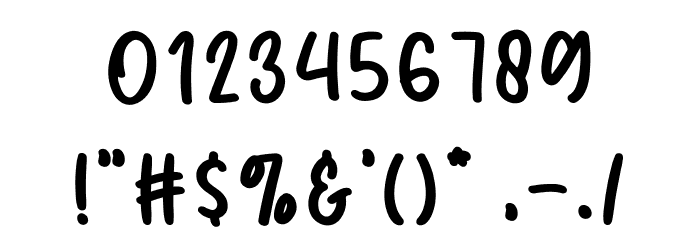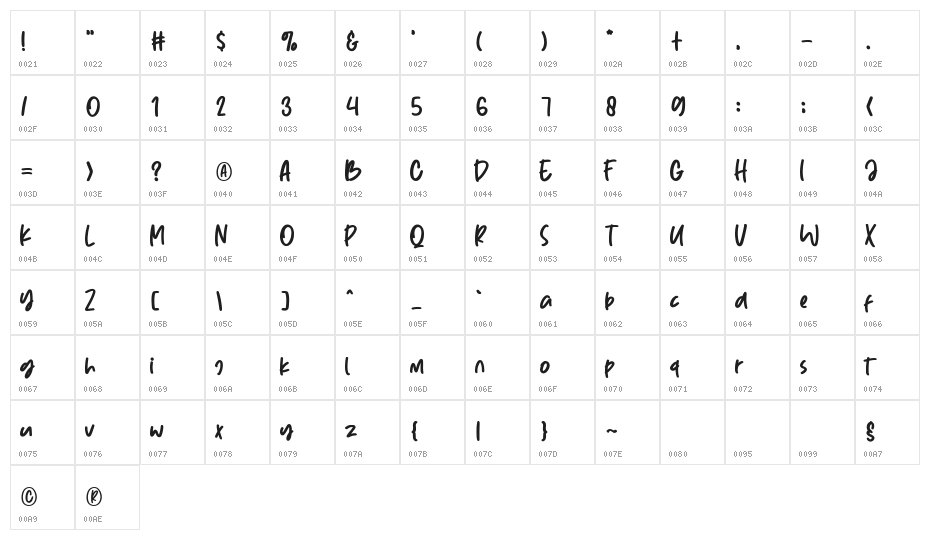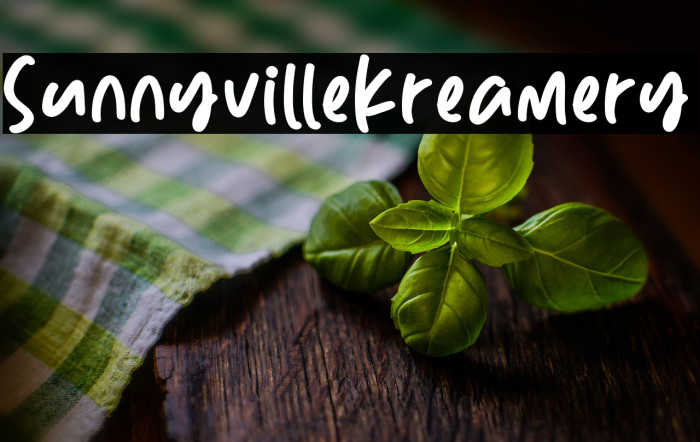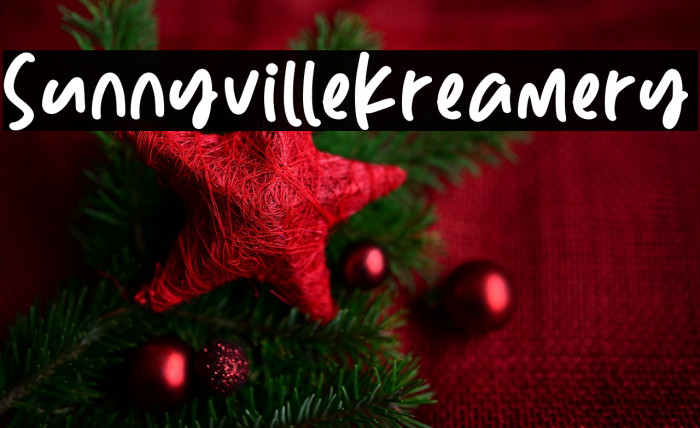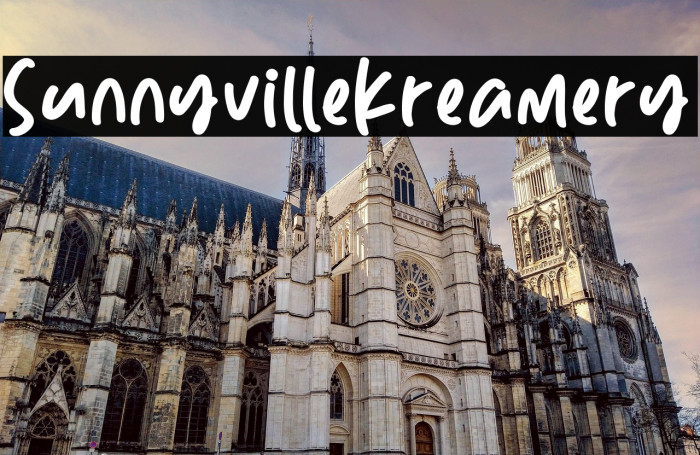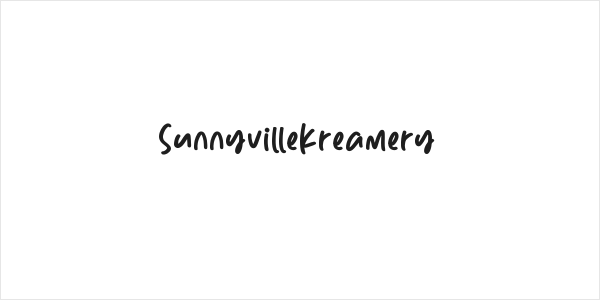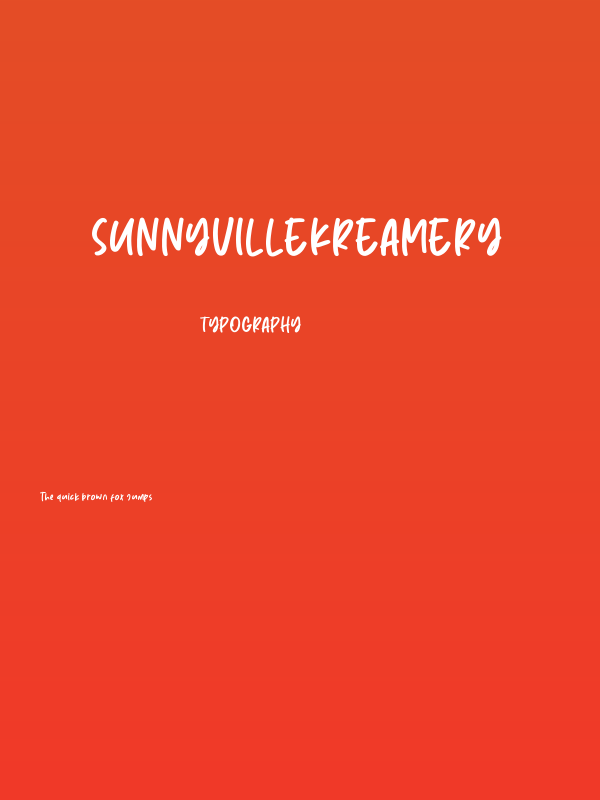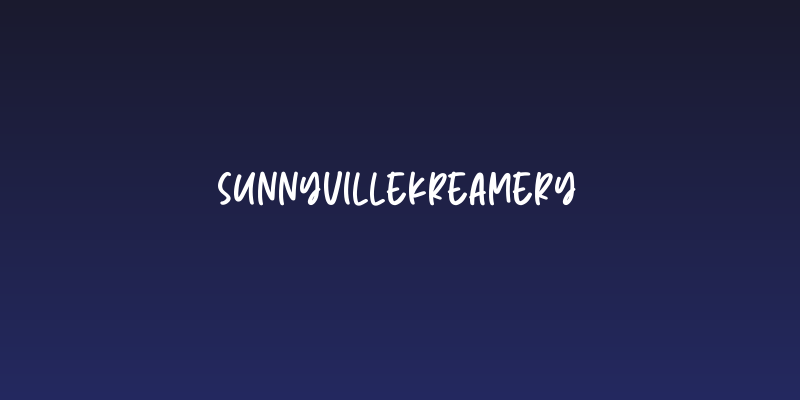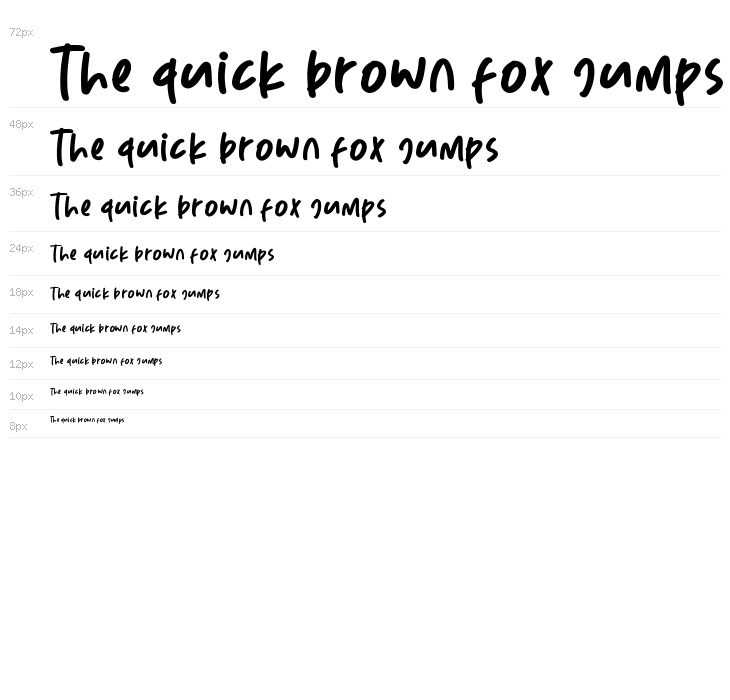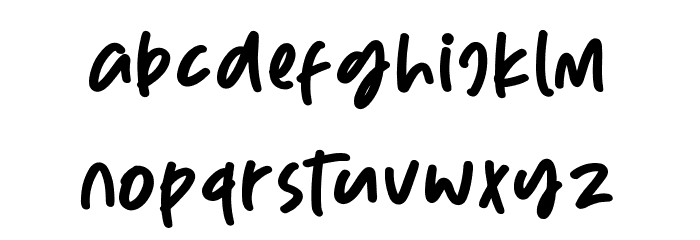
SunnyvilleKreamery Font
SunnyvilleKreamery Description
This font exudes a playful and casual handwritten style, characterized by its bold and slightly irregular strokes. The letters have a lively and energetic appearance, with a slight slant that adds to their informal charm. The uppercase and lowercase letters maintain a consistent flow, while the numbers and special characters complement the overall aesthetic. The strokes are thick and rounded, giving the font a friendly and approachable feel. This style is perfect for projects that require a personal touch or a sense of whimsy.
| Proposed Projects | Ideal for greeting cards, children's books, playful branding, and social media graphics. |